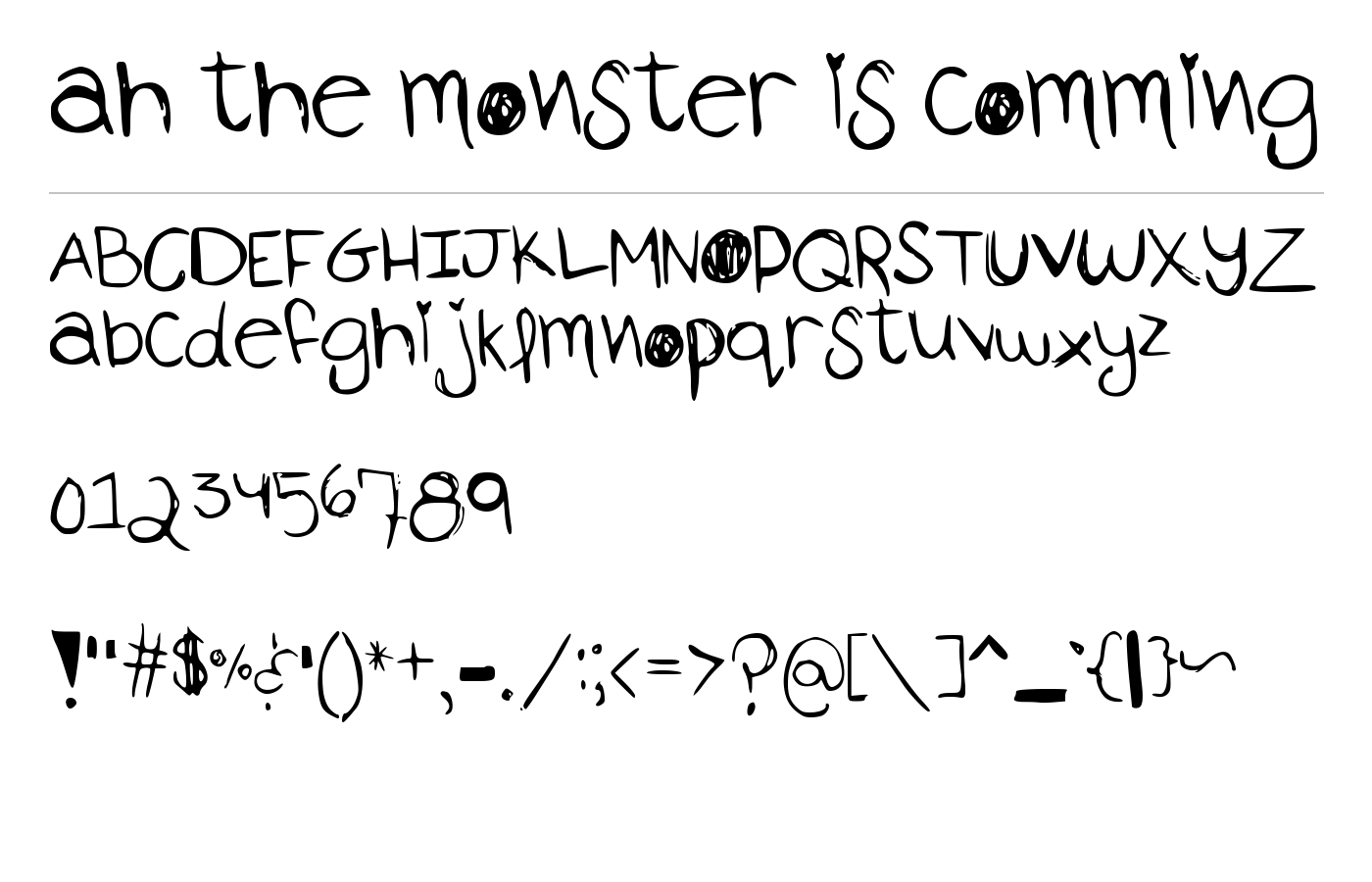
"Ah the monster is comming" is a playful, hand-drawn sans serif font with an irregular, whimsical style that feels casual and quirky. Its light weight and tall, narrow letterforms, paired with uneven strokes and scribble-like details in characters like the "o," give it a fun, childlike personality perfect for creative, informal designs. This font works best in projects like children’s books, Halloween themes, posters, or any design that benefits from a lively, approachable look.